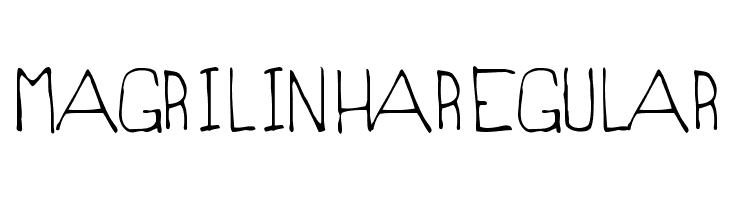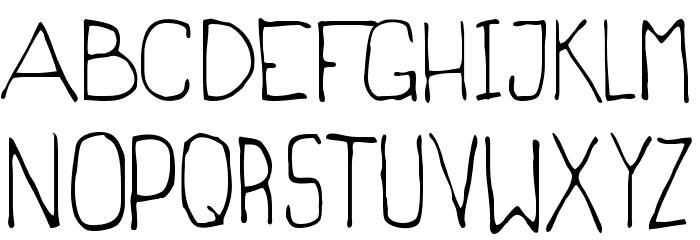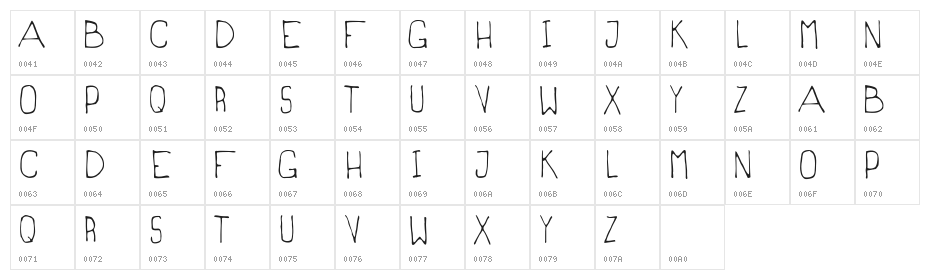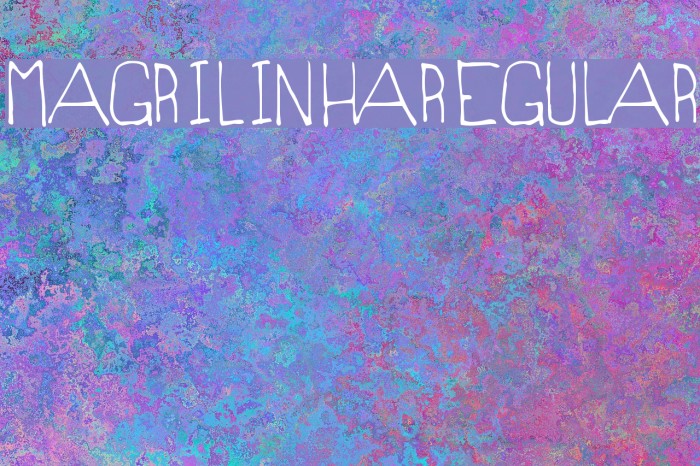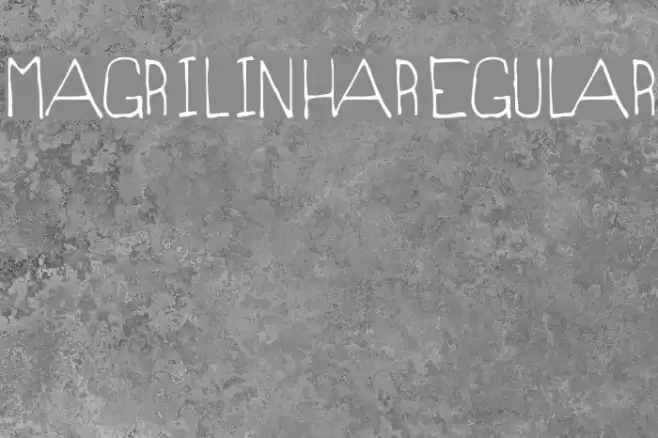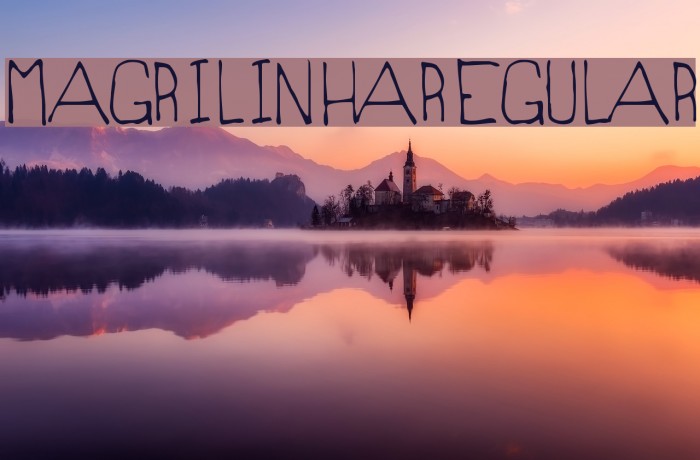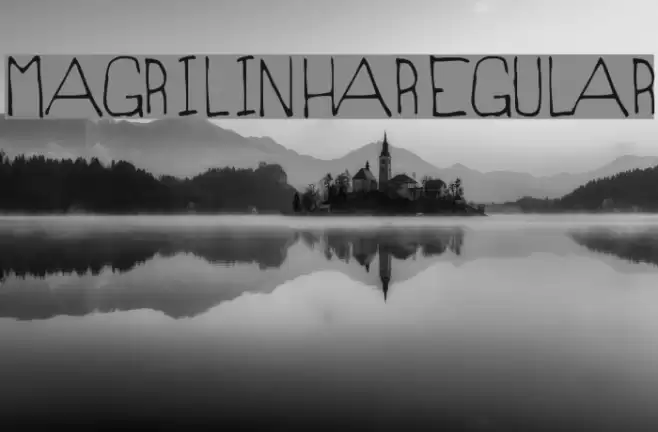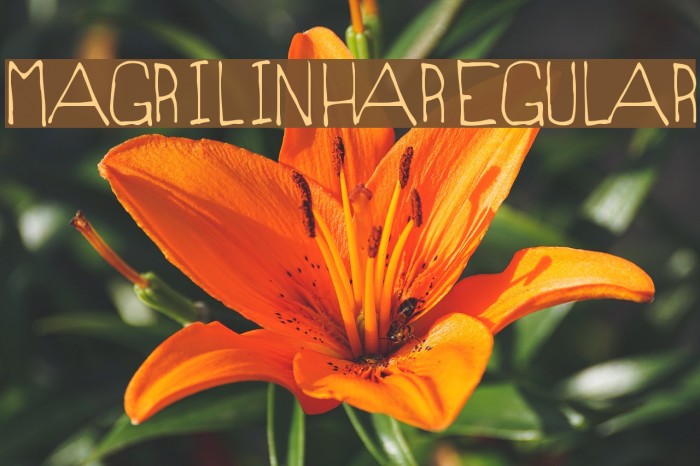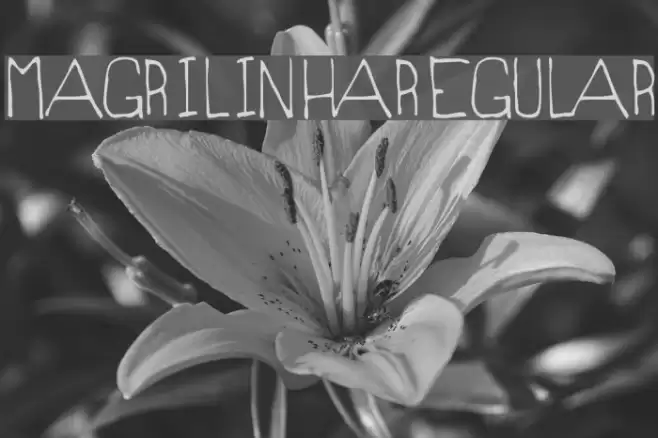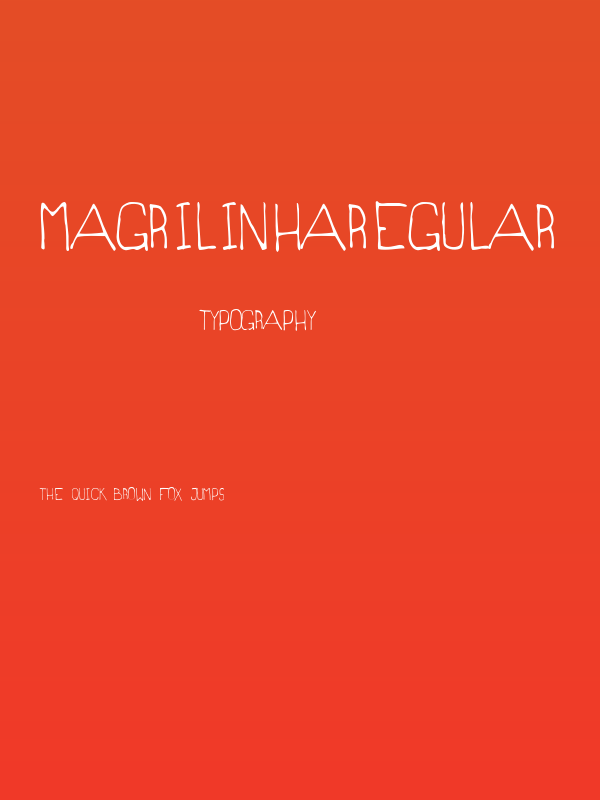
MagrilinhaRegular Font
MagrilinhaRegular Description
This font features a playful and hand-drawn aesthetic, characterized by its irregular and organic lines. Each letter appears as if it were sketched with a marker, giving it a casual and informal feel. The characters have a consistent height but vary slightly in width, adding to the whimsical nature of the design. The strokes are uneven, with some parts appearing thicker than others, contributing to a dynamic and lively appearance. This font is perfect for projects that require a personal touch or a creative flair, such as children's books, greeting cards, or artistic posters.
Use CaseHeadlines, Artistic projects, Informal designs
Proposed ProjectsIdeal for children's books, greeting cards, artistic posters, and creative projects.